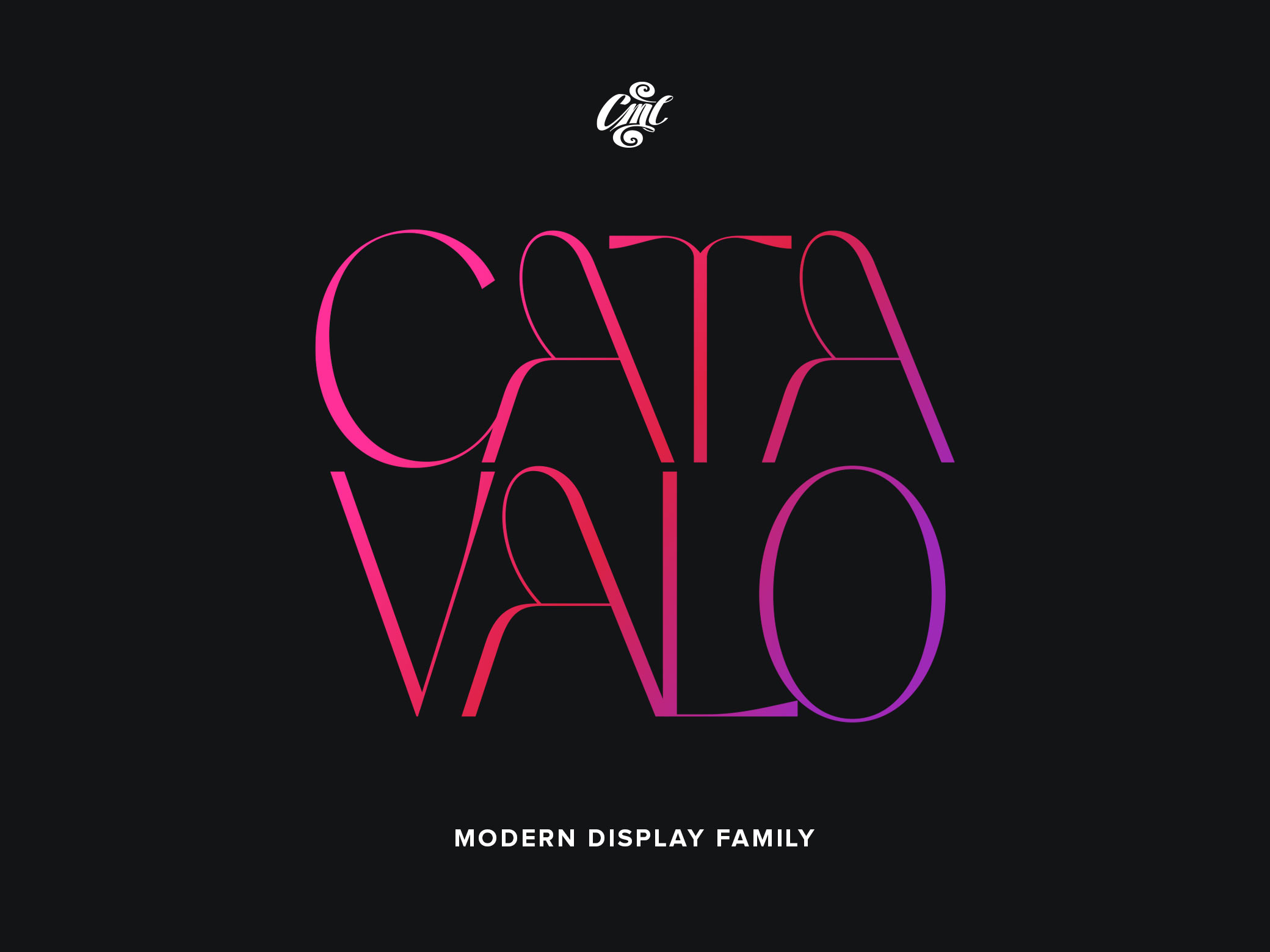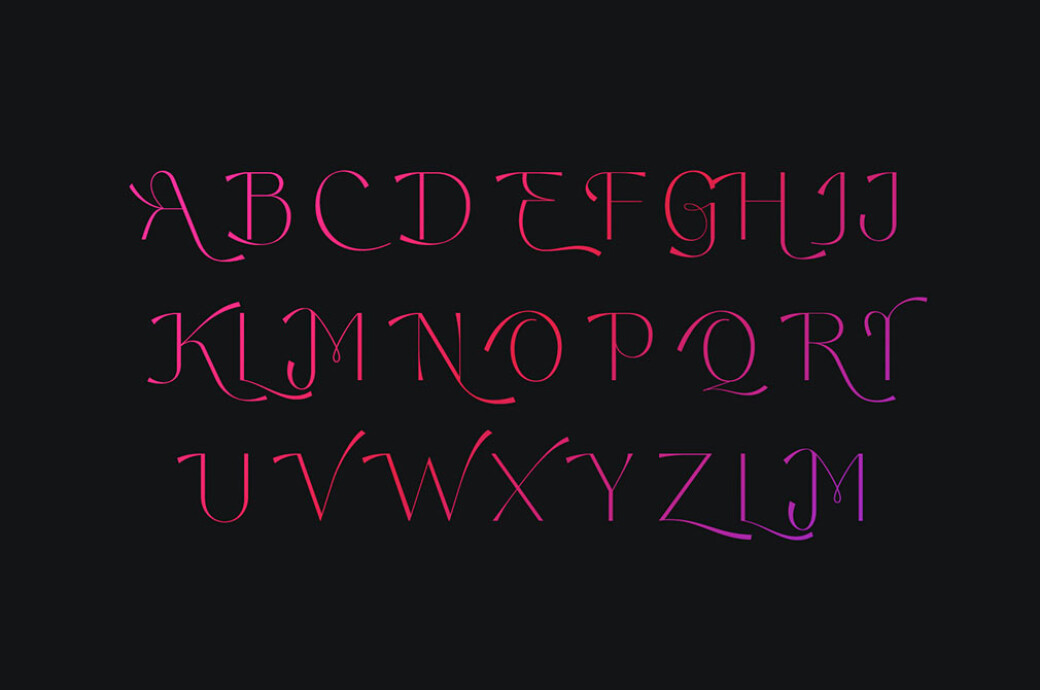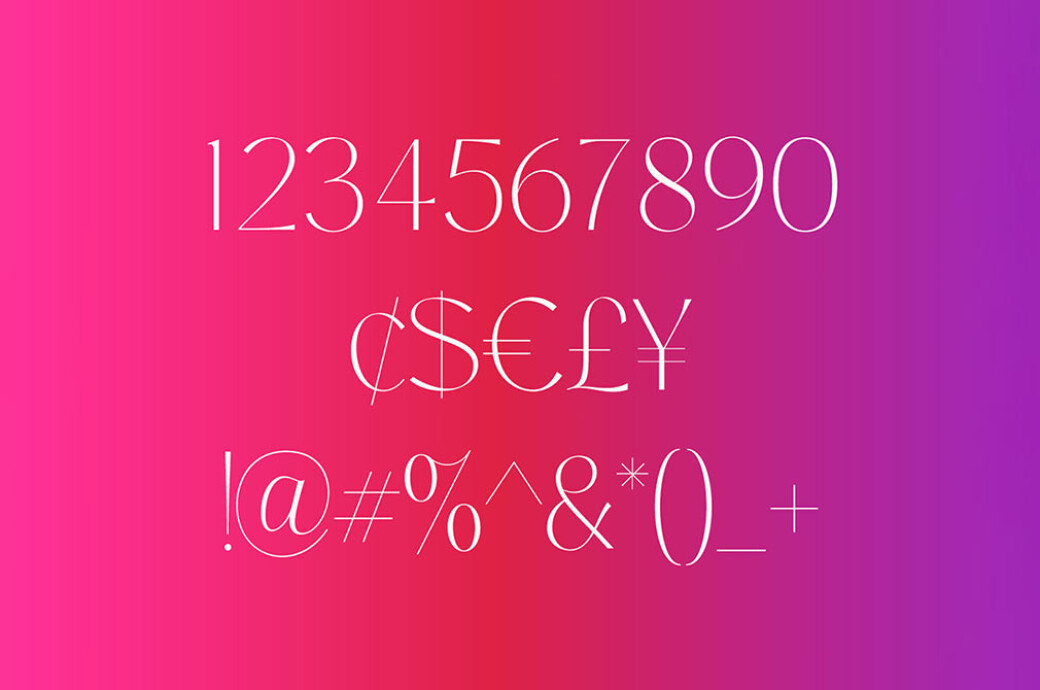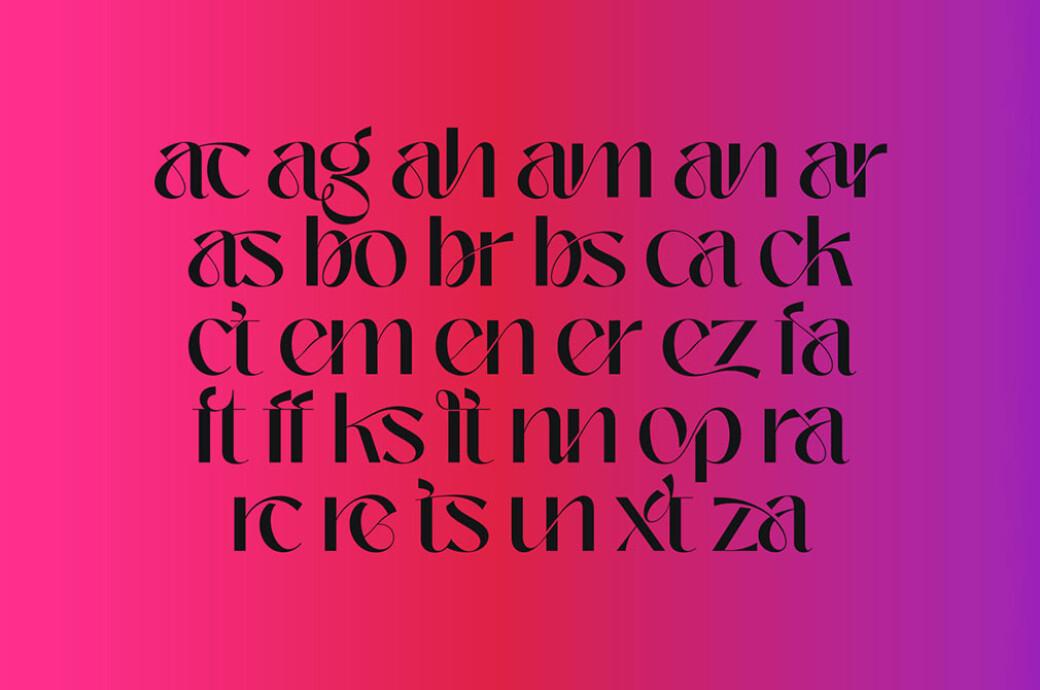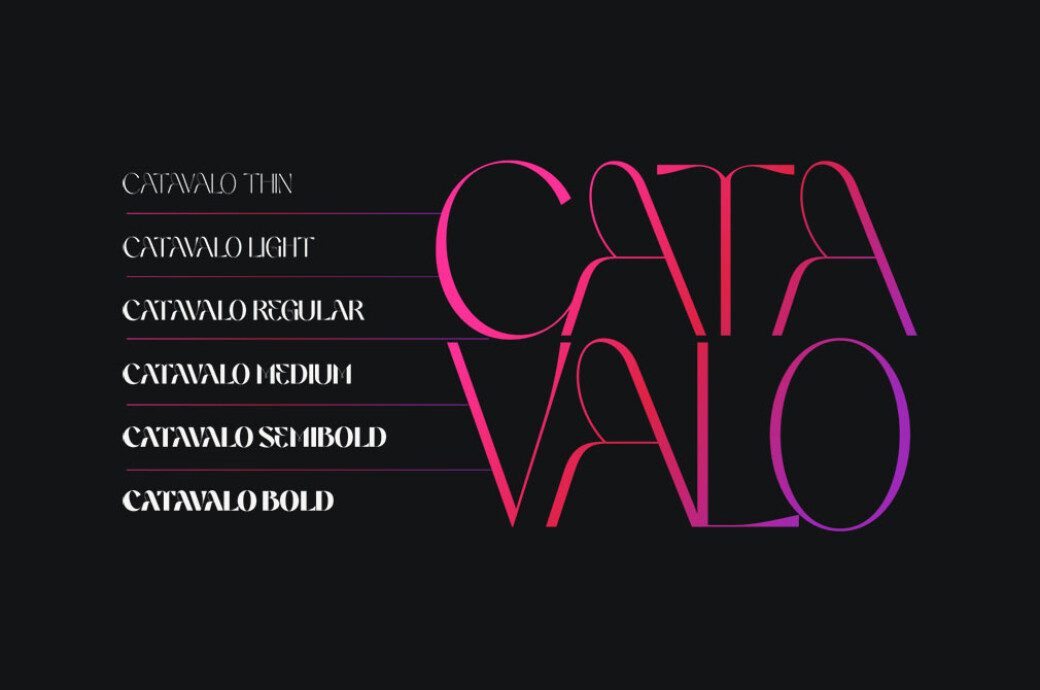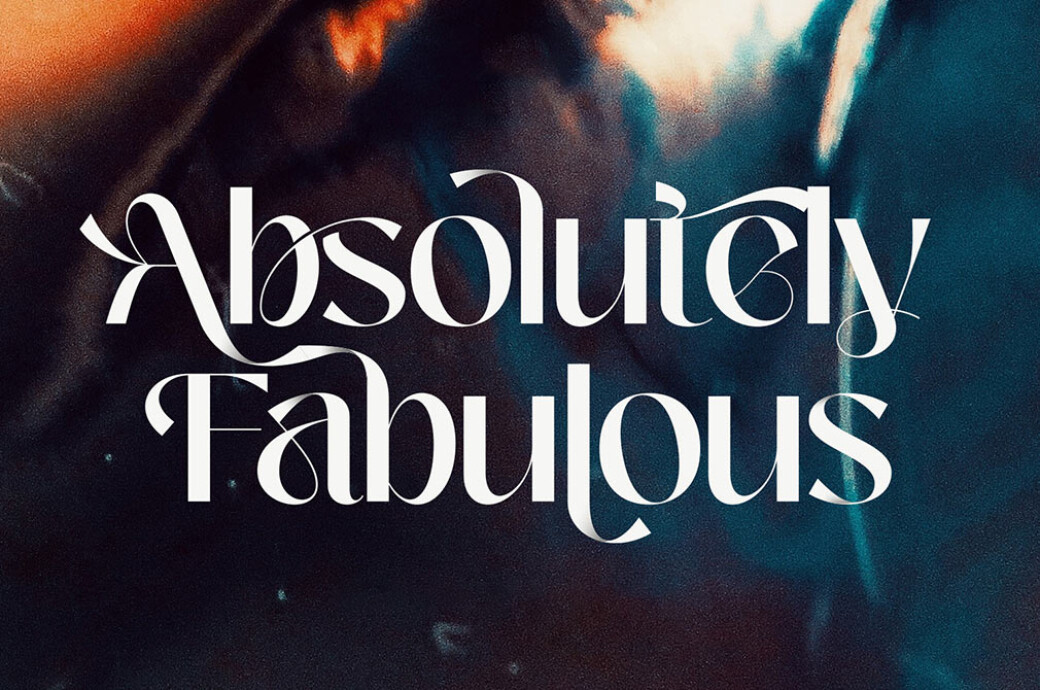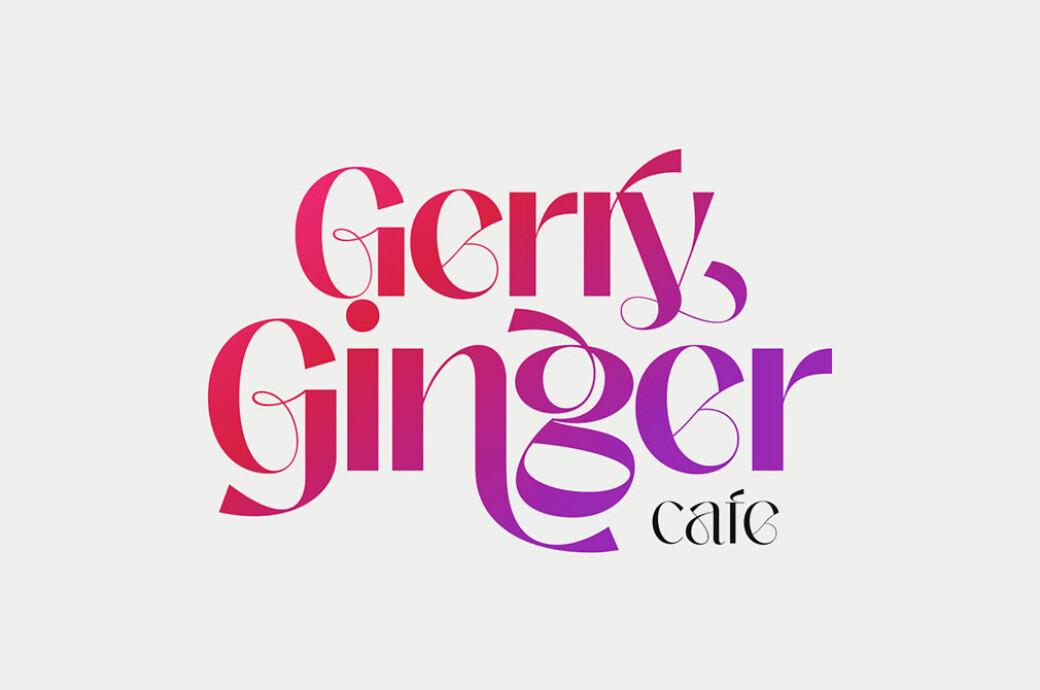
Catavalo Modern Display Font Family
If the modern typographic make you a little dizzy with its elegant twists and extremes, don't deny yourself the pleasure to get another sharp font!Meet Catavalo font family and let it become your most favorite typographic solution at all times. Here, every letter is filled with infinite charm, so no one will be able to resist the message you bring with this font. The package includes 6 fonts in different weights. To supply you with ultimate creative freedom, there is a full characters set, complemented by 60+ alternates, 30+ ligatures, and multilingual support. Catavalo font family will be perfect for headers, prints, or any fashion branding-related concept. However, don't let yourself be limited to these uses, as there are no bounds ever for a designer's self-expression.